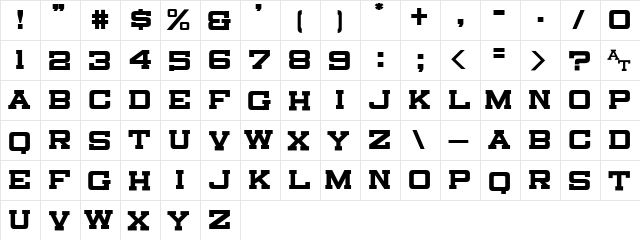
Canarsie Slab JL Regular
| Foundry | Jeff's Fonts & Dingbats |
| Designer | Jeffrey N. Levine |
Design Context for Canarsie Slab JL Typeface
Canarsie Slab JL combines the readability of serif typography with the visual weight of a slab construction, resulting in a typeface that feels both authoritative and approachable.
Works well in editorial design, news publishing, impactful branding, and poster typography.
Pro Tip: Try Canarsie Slab JL set tight in headlines for a classic editorial feel. Its slab serifs create strong horizontal rhythm that anchors a page layout.